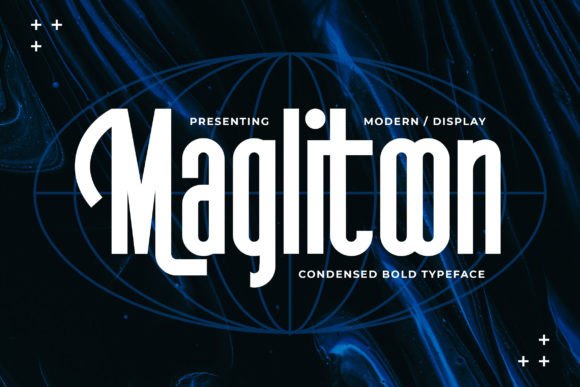
Welcome to the world of Maglitoon, a display font family designed to leave a lasting impression. Crafted by the skilled hands of TypeFactory, Maglitoon embodies the essence of elegance and impact, striking a perfect balance that captivates the senses.
Step into a realm of visual artistry where each letter form radiates strength and confidence, commanding attention and leaving an unforgettable mark. Maglitoon is more than just a collection of characters; it's an expression of boldness and sophistication, carefully engineered to elevate your designs.
Unleash the power of Maglitoon and witness the transformation of your headlines, logos, and branding materials. Its compact letterforms exude a sense of modernity and minimalism, while its refined curves evoke a touch of timeless grace.
As a designer, you understand the importance of creating visual impact. Maglitoon empowers you to do just that, effortlessly elevating your projects to new heights of creativity and distinction.
Embrace Maglitoon and embark on a journey of visual storytelling, where every word carries weight and every design element speaks volumes. Experience the sheer joy of crafting designs that resonate with audiences, leaving an indelible mark on their hearts and minds.
With Maglitoon, the possibilities are limitless. Dive into a world of creative expression, where your imagination knows no bounds. Let your designs shine with an aura of confidence and elegance, capturing the attention of all who behold them.